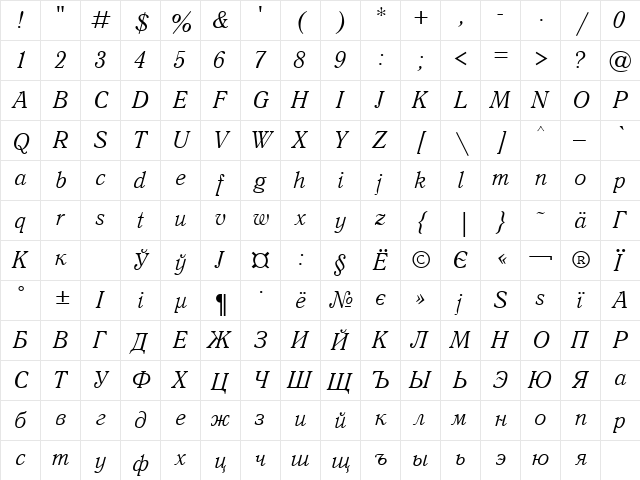
QuantAntiquaCTT Italic
Design Context for QuantAntiquaCTT Typeface
QuantAntiquaCTT offers clean, dependable letterforms without strong stylistic allegiance, making it a practical choice for designers who need flexibility. Its italic angle brings a sense of urgency and motion to the letterforms.
Pro Tip: Try QuantAntiquaCTT for annotation and caption copy alongside an upright companion — the contrast in angle creates a dynamic but ordered typographic system.